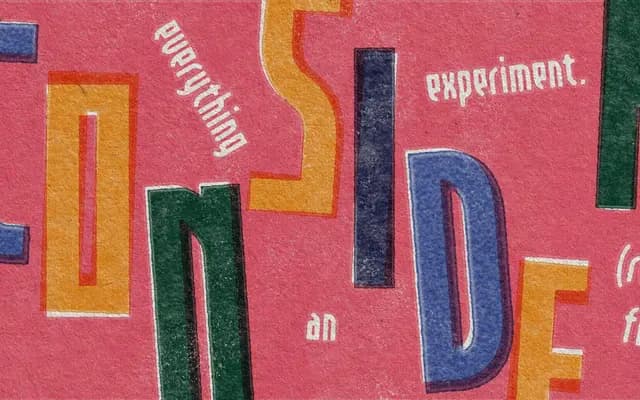
Demur
Tofu Type · Reese Lee · 2024
A single-weight condensed sans by Reese Lee, commissioned by the Winnipeg 1919 Workers Collective and rooted in constructivist lettering traditions.
Designed by Reese Lee for the Winnipeg 1919 Workers Collective, Demur grew from the collective's existing logo into a full typeface. Modular construction gives the letterforms a consistent internal rhythm, while condensed proportions and tight spacing make it feel most at home in headlines, posters and zine layouts. Latin and Cyrillic coverage, alongside stylistic sets for Bulgarian and Serbian forms, extends its reach across scripts with political heritage in constructivist typography.
Classified by the foundry as a constructivist sans; features modular construction, condensed proportions and tall x-height consistent with early Soviet-era geometric lettering traditions.